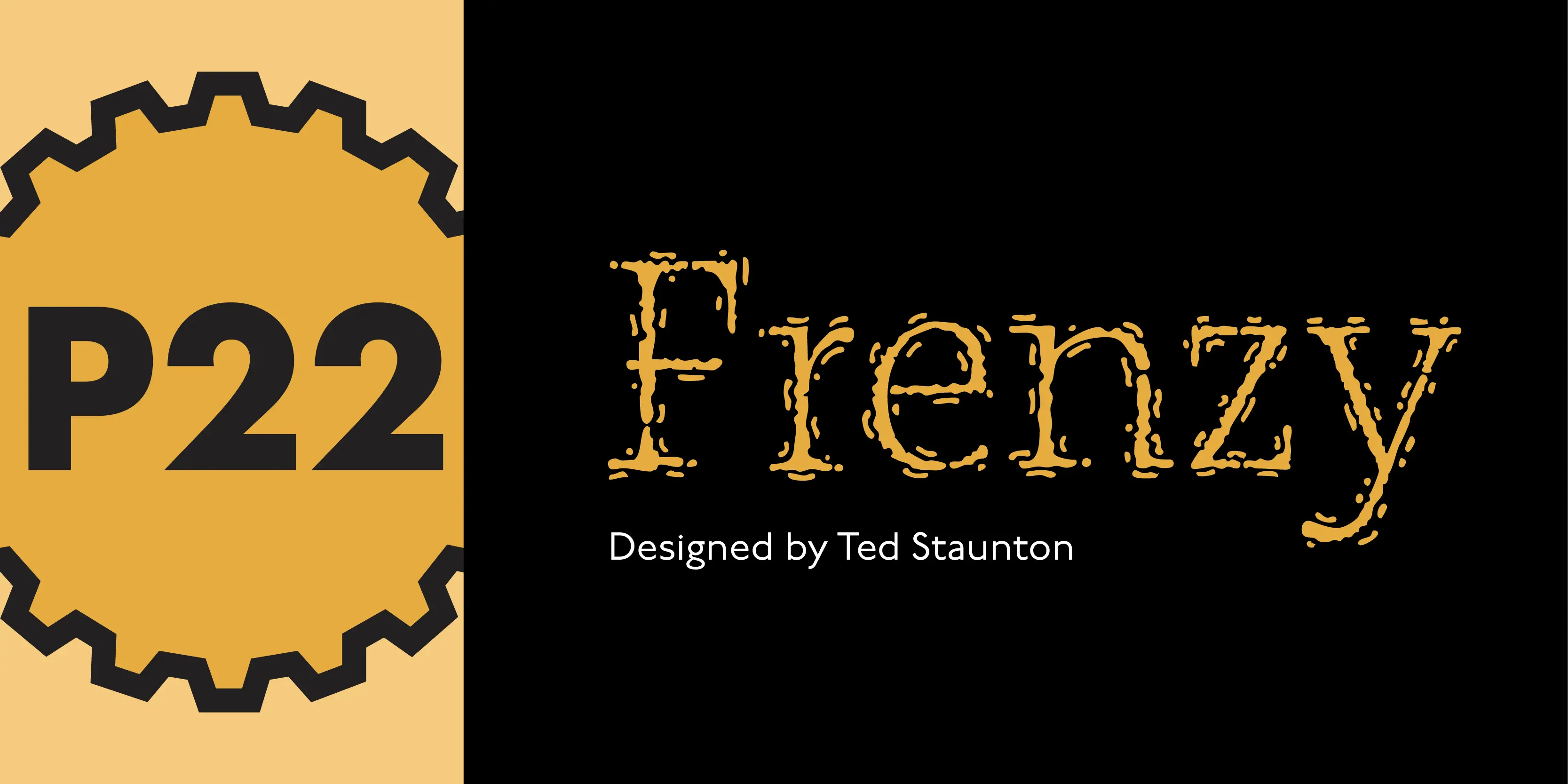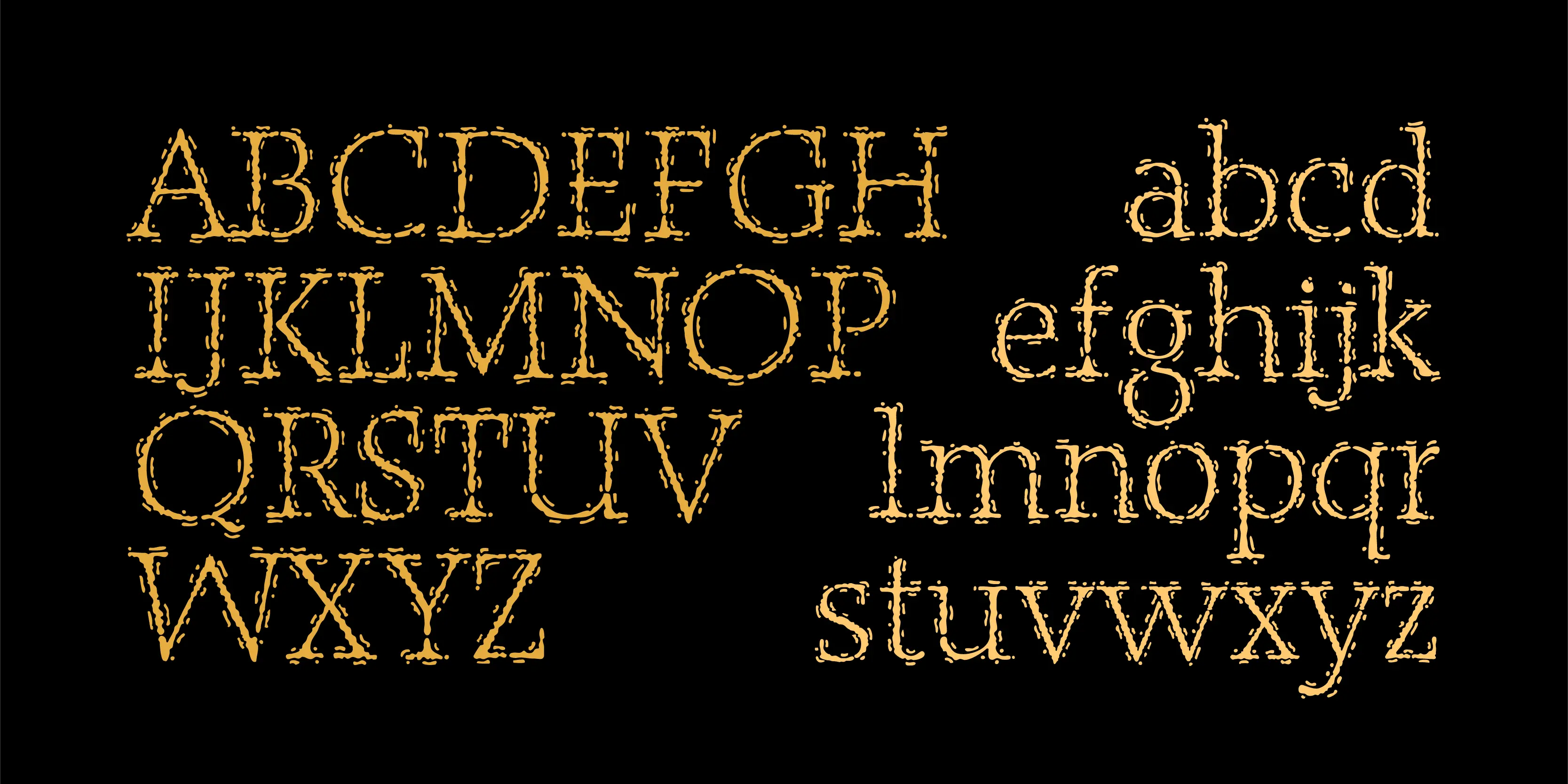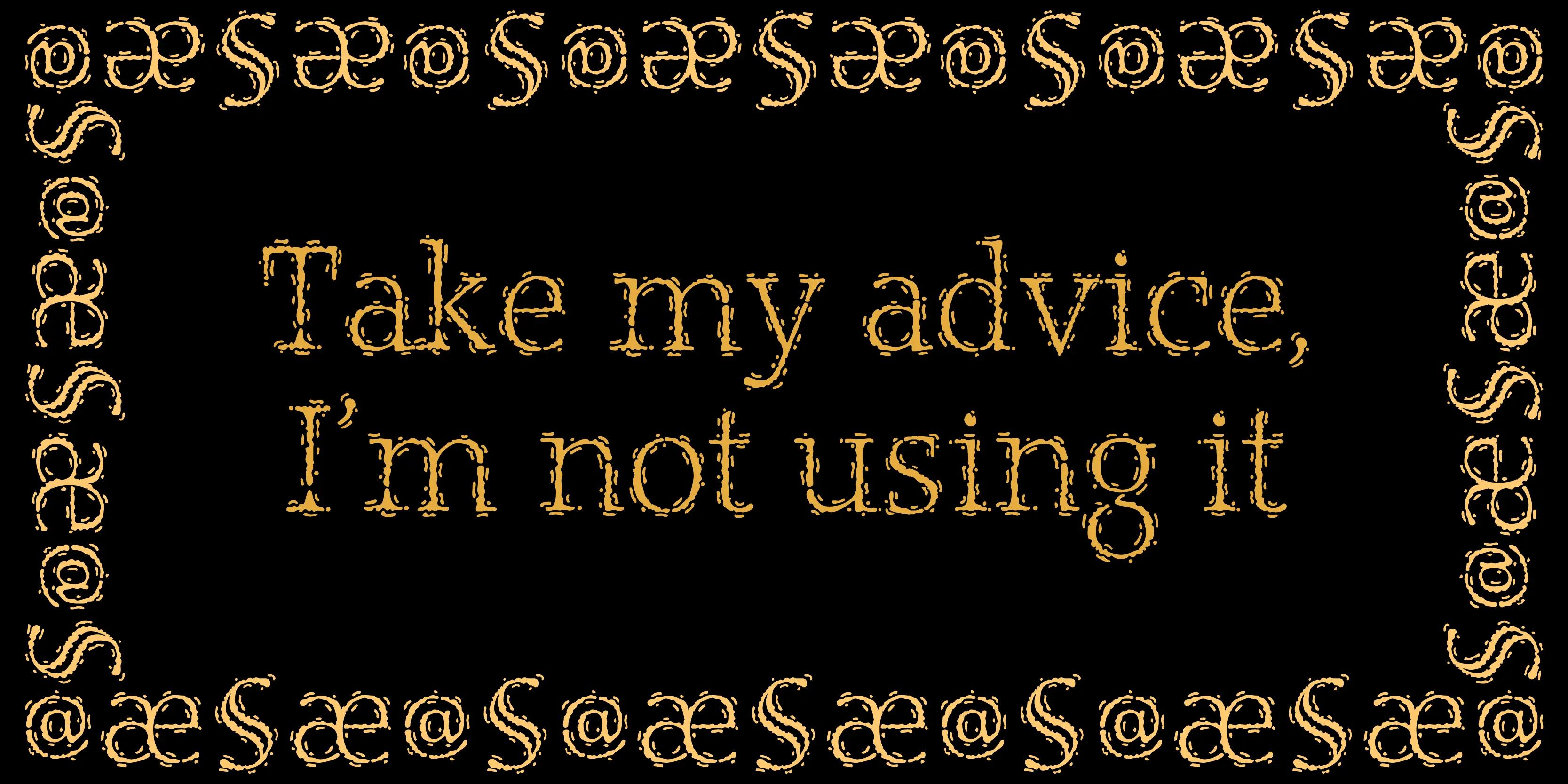
Frenzy Font Family
Frenzy
Frenzy evolved from a logo for a Gen X product offered by a very staid company. It is a sythesis of Classic Roman Capitals and American Typewriter — with a bit of frenetic energy stirred in. It is dedicated to Jacob, my youngest child, who is the epitome of the font…contained chaos.